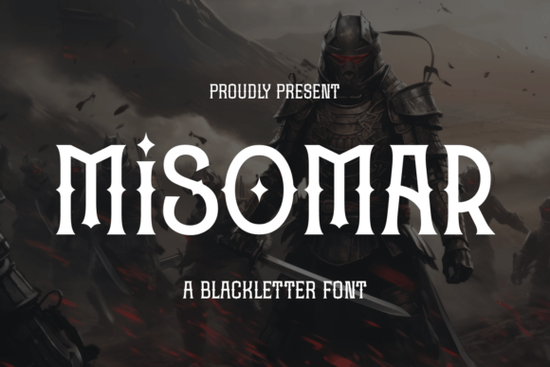
If you're working on a design that calls for drama, history, or a touch of old-world elegance, the Misomar Font might be exactly what your project needs. This bold blackletter typeface blends sharp, pointed serifs with flowing, intricate strokes giving it a distinctive look that feels both medieval and meticulously crafted. Whether you’re designing book covers, branding for a fantasy-themed product line, or custom apparel with gothic flair, Misomar brings a refined traditional touch without feeling dated.
Blackletter fonts like Misomar trace their roots back to handwritten manuscripts and early European printing. While many modern blackletter styles lean heavily into grunge or tattoo aesthetics, Misomar stands out by balancing ornate detail with clean structure. That makes it surprisingly versatile you can use it for wedding invitations with a vintage twist, logo designs for craft breweries, or even packaging for artisanal goods where heritage matters.
What kinds of projects work best with Misomar?
Because of its strong personality and historical vibe, Misomar shines in contexts where storytelling and atmosphere are key. Here are a few real-world uses:
- Book and album covers especially for genres like historical fiction, dark fantasy, or gothic romance.
- Event signage for Renaissance fairs, medieval banquets, or themed weddings.
- Logo design for small businesses that want to convey craftsmanship, like leatherworkers, candle makers, or specialty coffee roasters with a heritage angle.
- Print-on-demand merchandise, including T-shirts, mugs, and posters featuring quotes, crests, or faux-heraldic designs.
Keep in mind that because Misomar is so decorative, it’s best used for headlines, titles, or short phrases not body text. Pair it with a clean, neutral sans-serif (like Montserrat or Lato) to let the font’s details breathe while keeping your layout readable.
How does Misomar compare to other blackletter fonts?
Many blackletter fonts prioritize raw texture or exaggerated spikes, which can limit their usability in professional settings. Misomar, by contrast, maintains legibility even at smaller sizes thanks to its balanced stroke contrast and consistent spacing. It doesn’t sacrifice character but it also doesn’t overwhelm your composition.
You’ll find similar options in Creative Fabrica’s collection of blackletter fonts, but Misomar’s blend of elegance and strength gives it a unique niche. If you’ve tried other gothic fonts and found them too chaotic or hard to integrate, this one might feel refreshingly controlled.
Tips for getting the most out of Misomar
Because of its detailed letterforms, Misomar works best when given space to shine. Avoid cramming it into tight layouts or using it over busy backgrounds. A few practical suggestions:
- Use generous leading (line spacing) if stacking multiple lines it prevents the sharp serifs from visually colliding.
- Stick to uppercase for maximum impact; the lowercase letters are beautiful but more delicate.
- Test printouts before finalizing physical products some fine details may need slight thickening depending on your printer or production method.
- Consider subtle textures (like parchment or aged paper) as backgrounds to enhance the historical mood without competing with the type.
Finally, remember that typography is part of storytelling. Misomar isn’t just a font it’s a tone of voice. Use it when your message calls for gravitas, tradition, or a whisper of mystery.